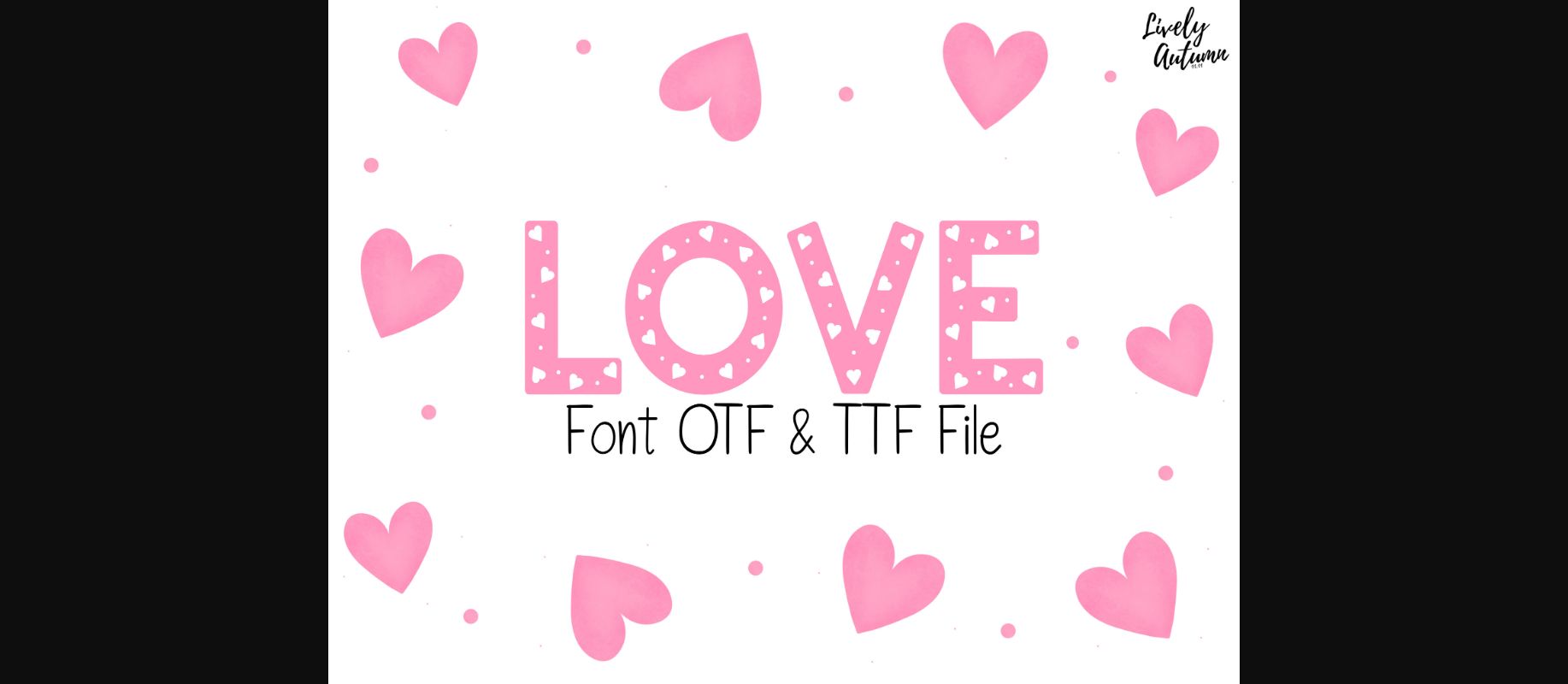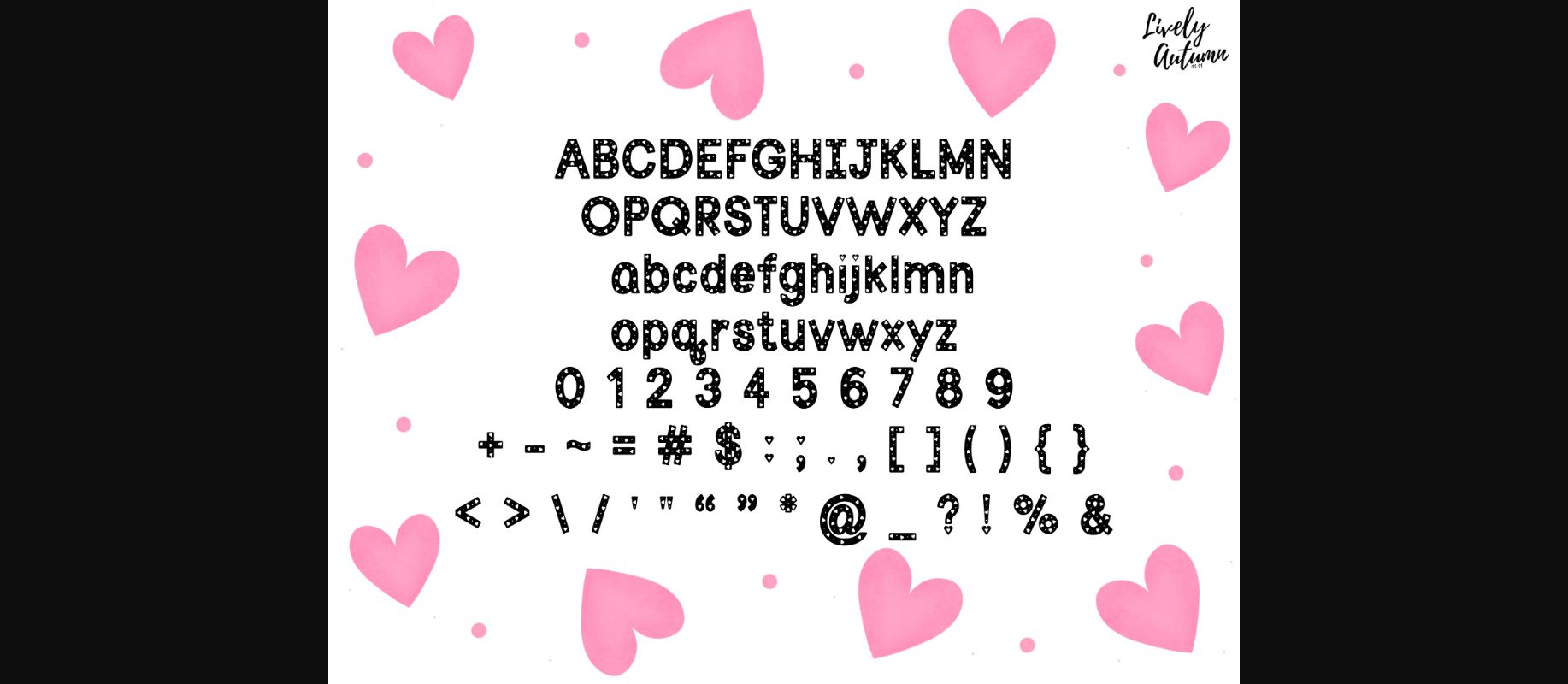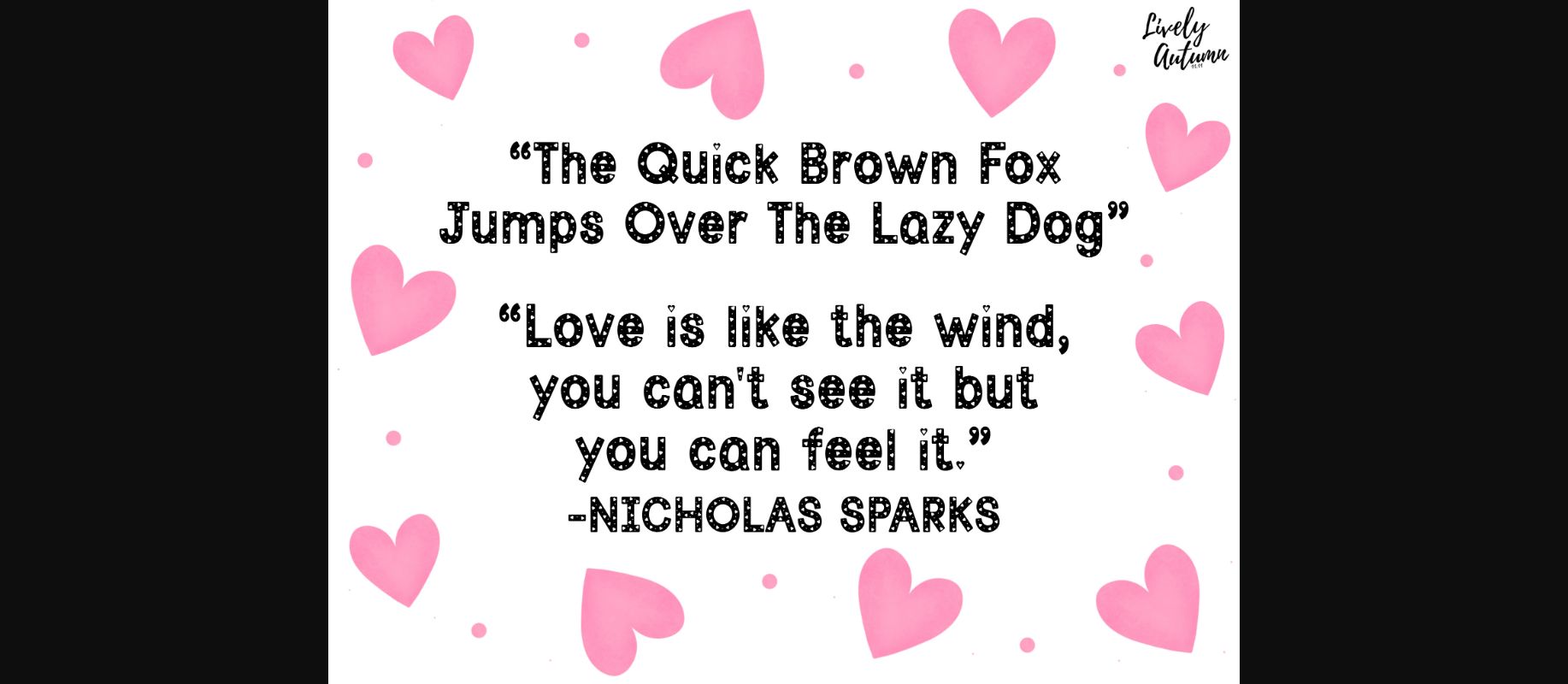
Heart Decor Font
About Heart Decor Font
The Heart Decor Font is a fancy decorative font decorated with a little heart inside each letter. Perfect for your Valentine’s Day cards, romantic invitations, heartfelt messages, and much more.